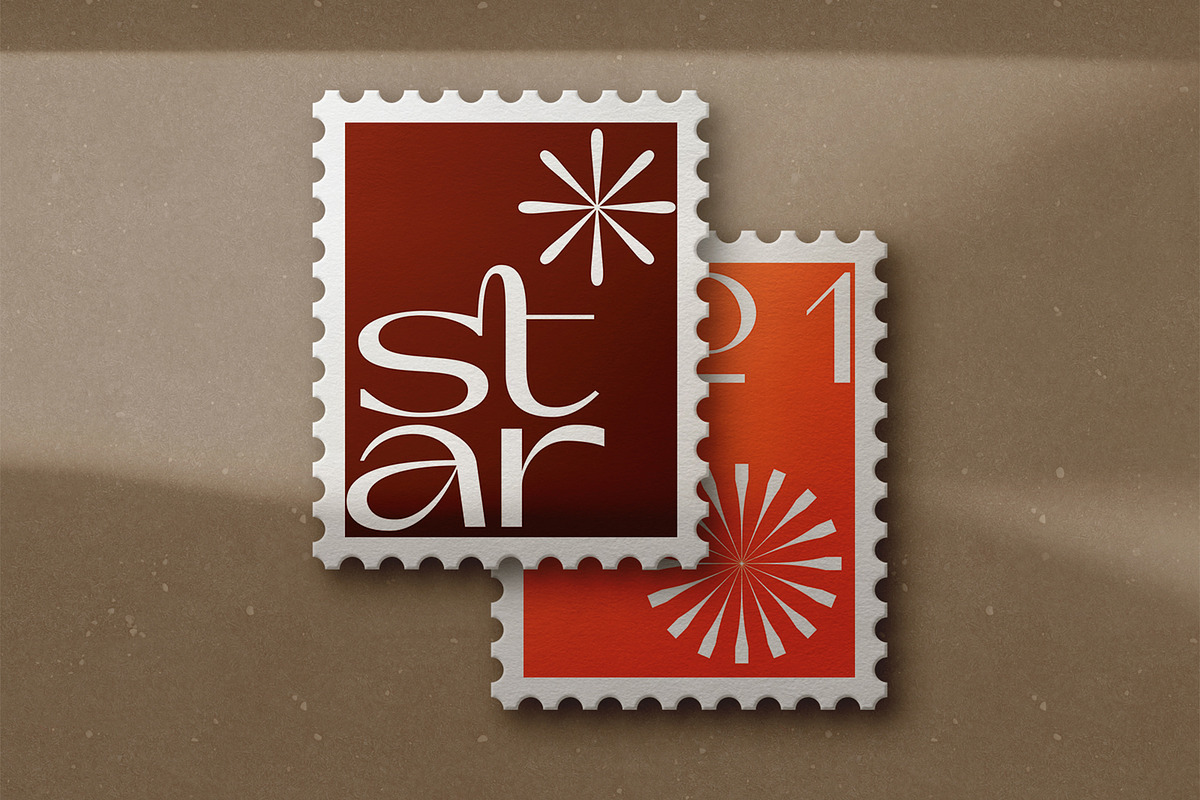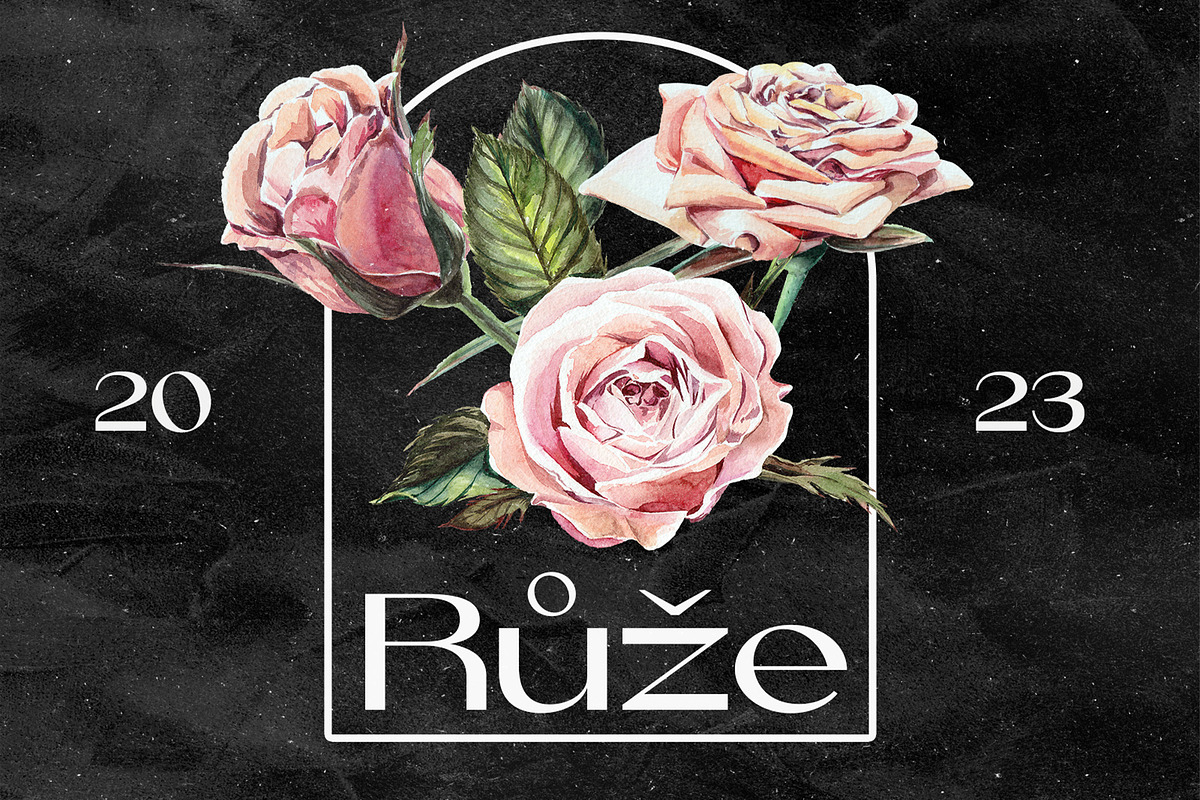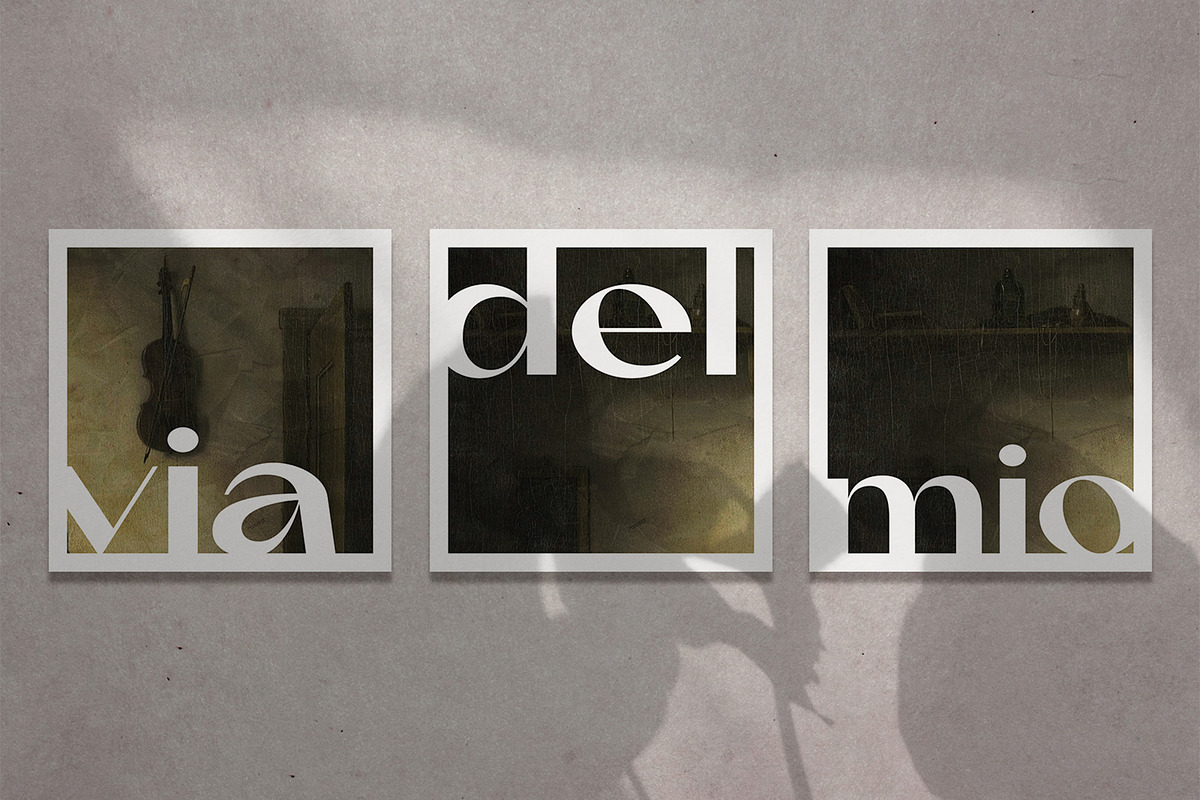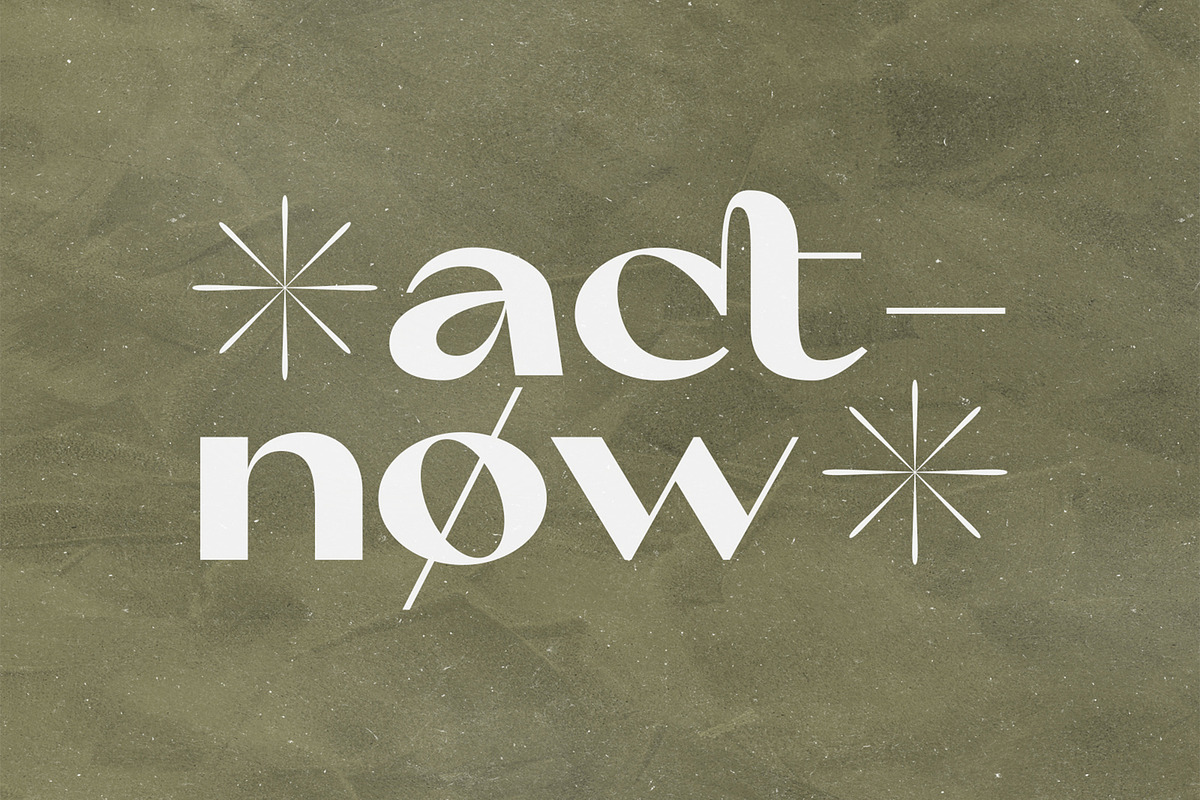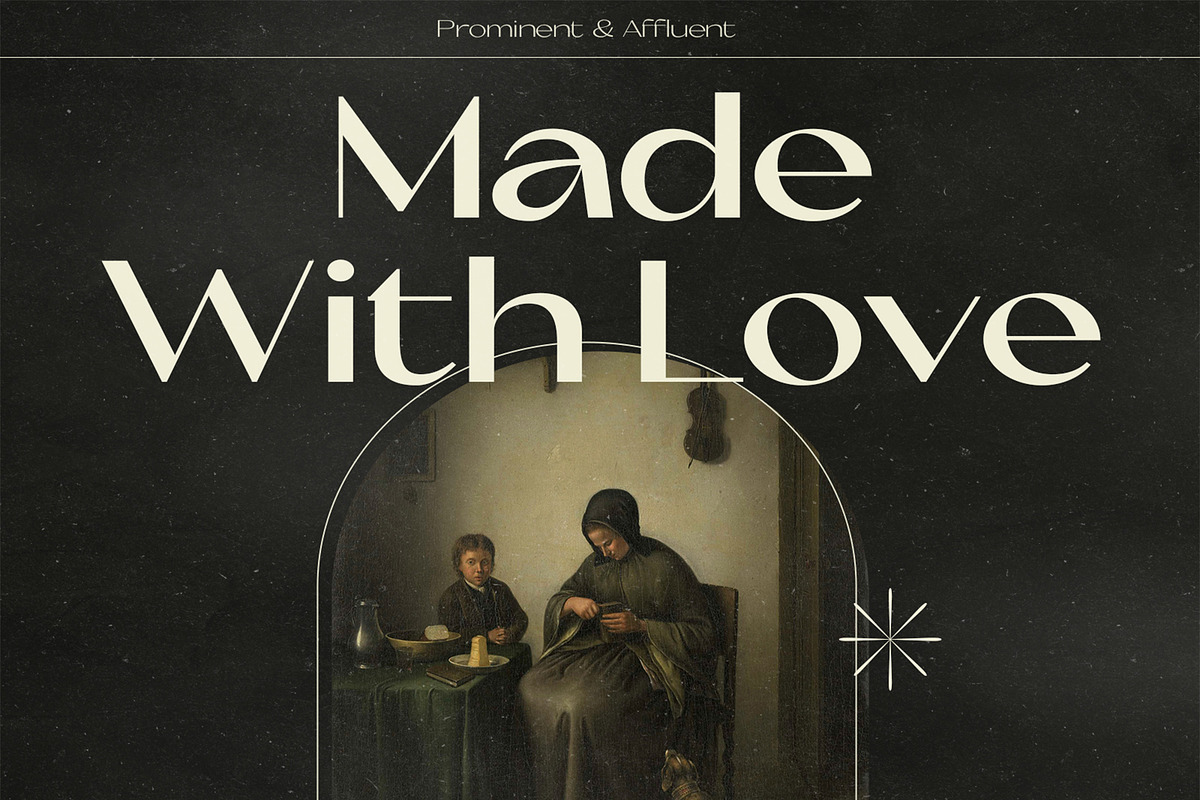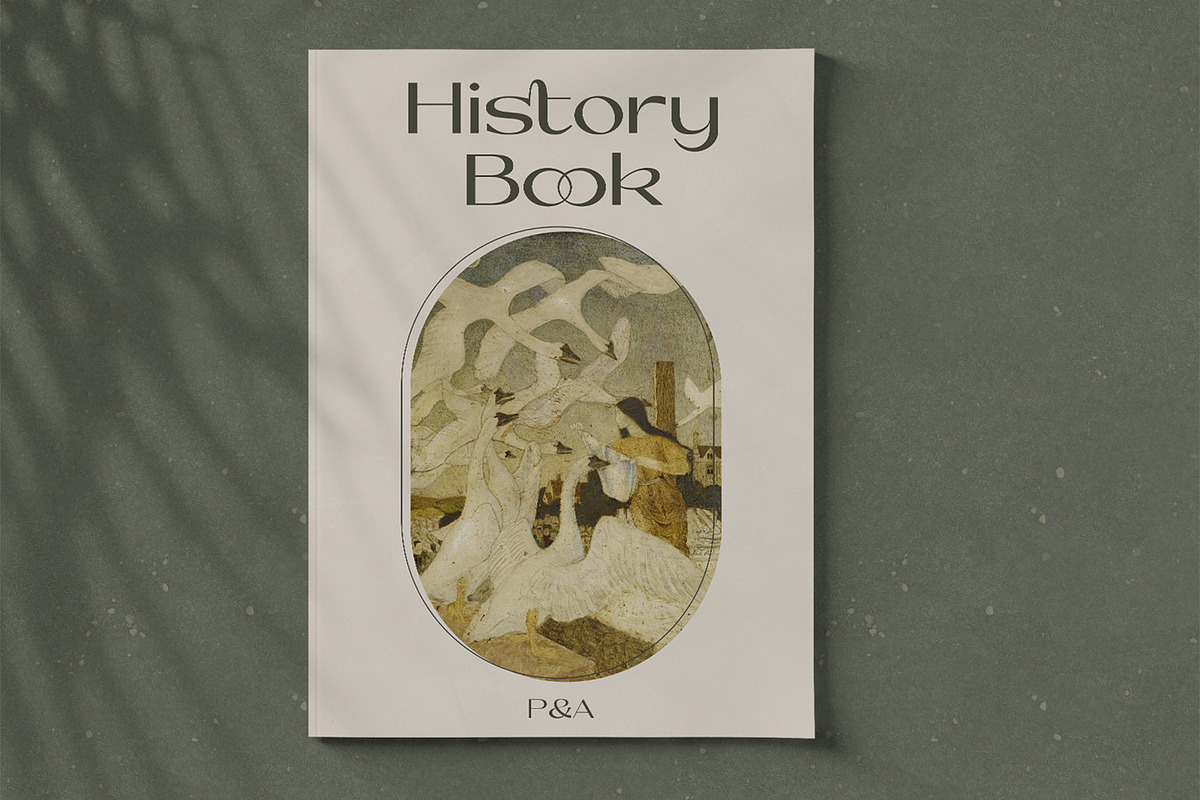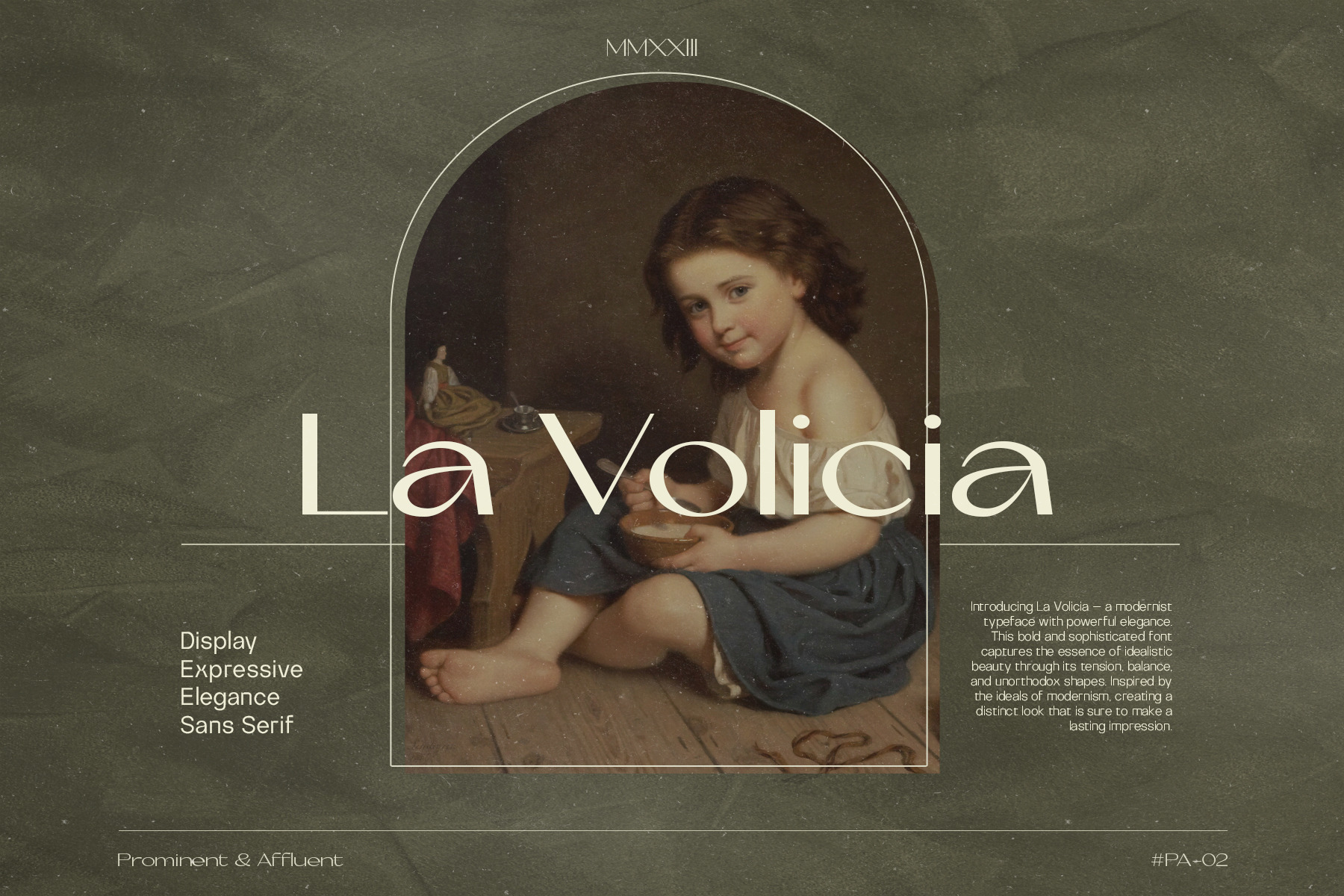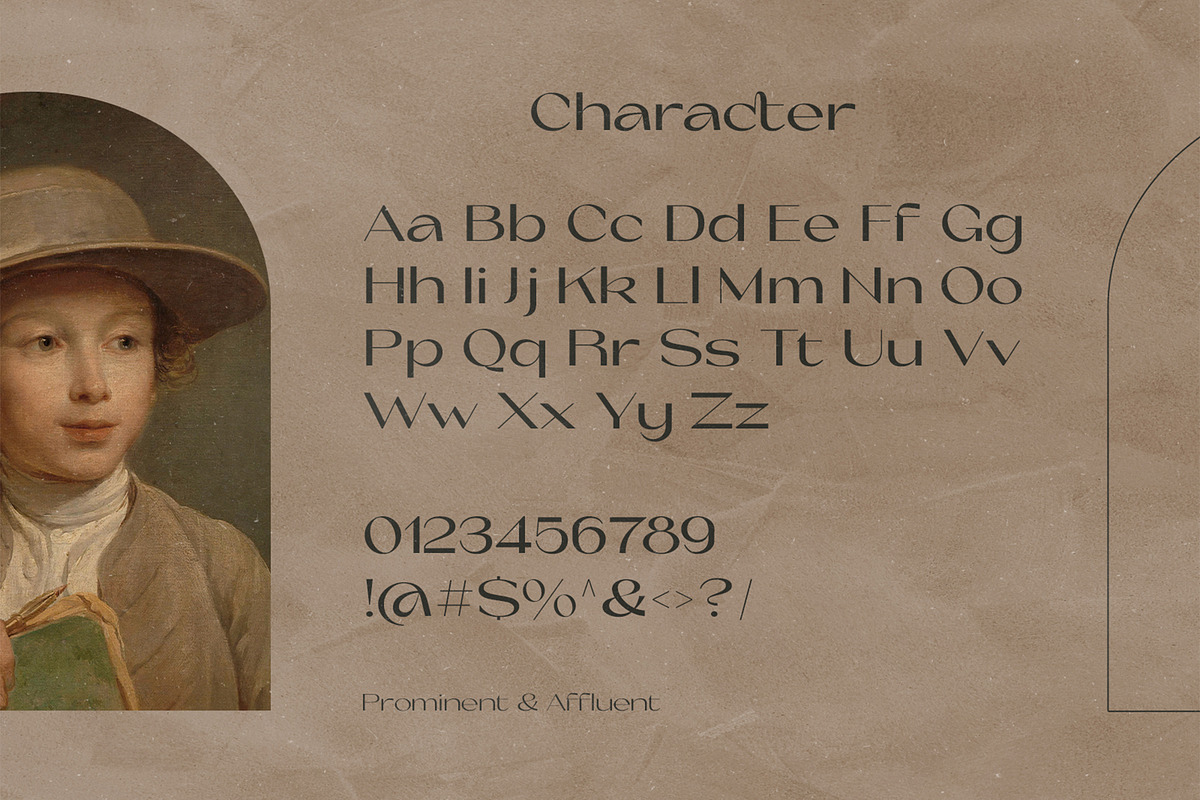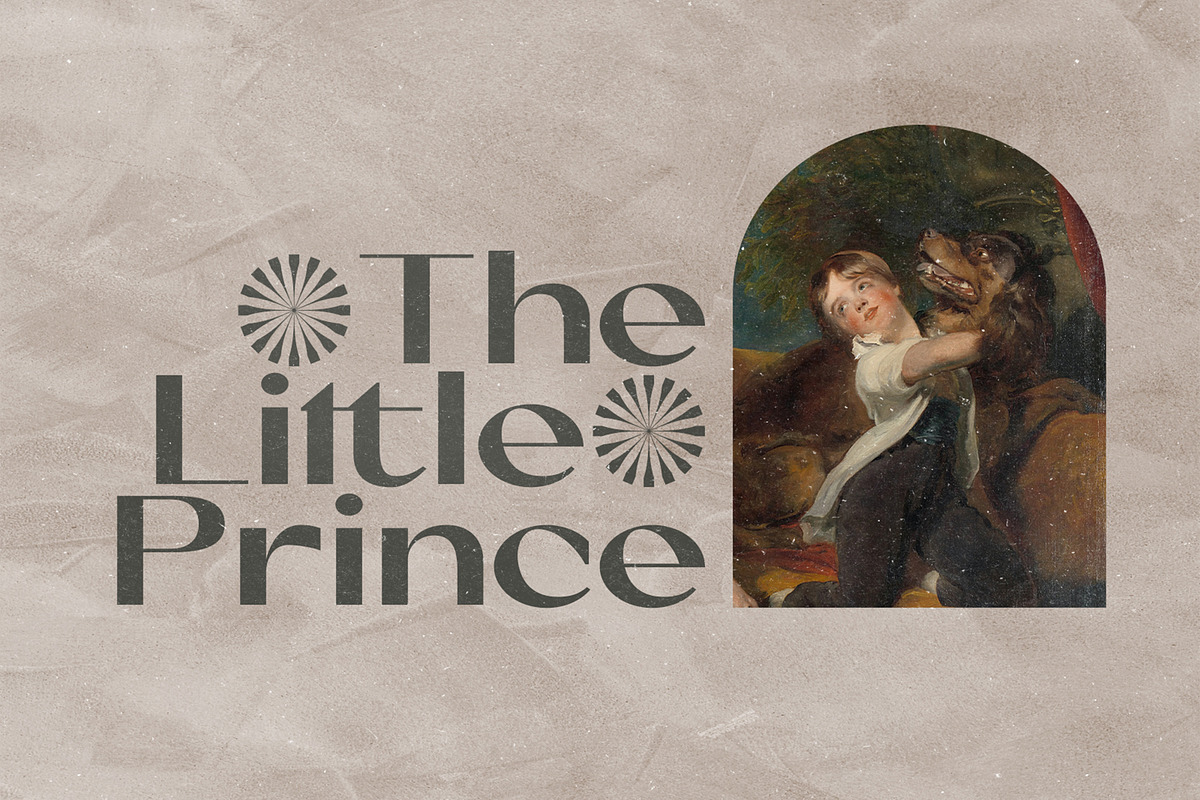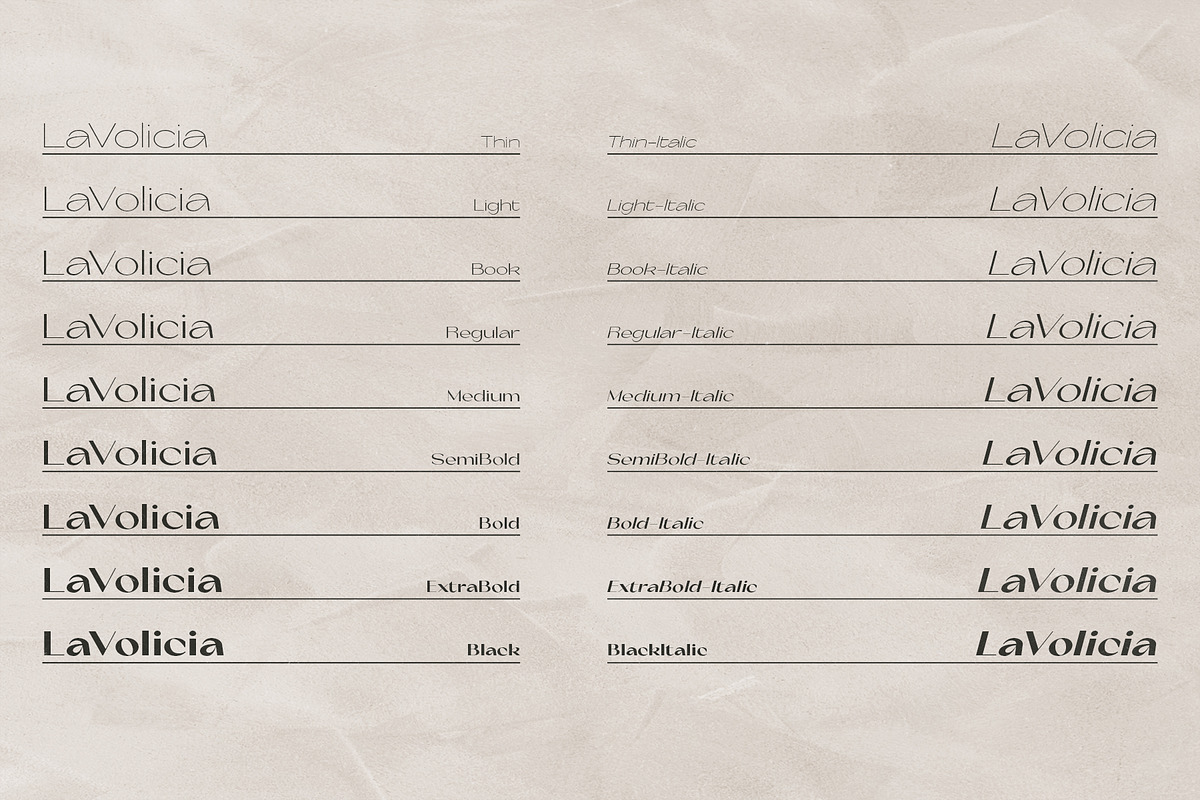
La Volicia Typeface
A modernist typeface with powerful elegance. This bold and sophisticated font captures the essence of idealistic beauty through its tension, balance, and unorthodox shapes. Inspired by the ideals of modernism, creating a distinct look that is sure to make a lasting impression.
La Volicia is a design statement that echoes the ideals of an era that sought to break boundaries and embrace new possibilities. Each letterform is an embodiment of purity and clarity, making it the perfect choice for those who value forward-thinking design. Ideal for a wide range of applications, from branding to web design. Its clean lines and minimalist aesthetic enable you to convey your message with precision and uncluttered elegance.
La Volicia is more than just a font; it is an homage to the modernist movement, where aesthetics and functionality converge harmoniously. It captures the essence of an era that valued simplicity, functionality, and innovation. Whether you envision a brand identity that signifies progress and vision or a digital project that embodies the spirit of minimalism, La Volicia empowers you to craft designs that resonate with your ideals.